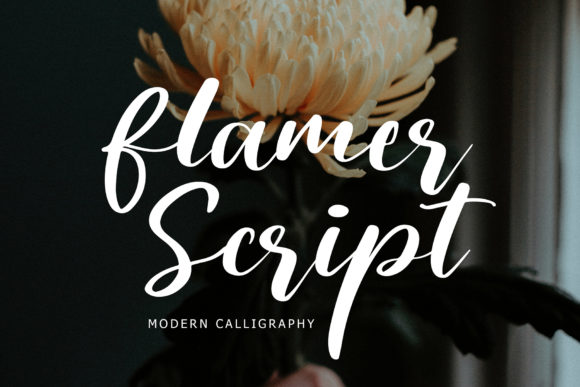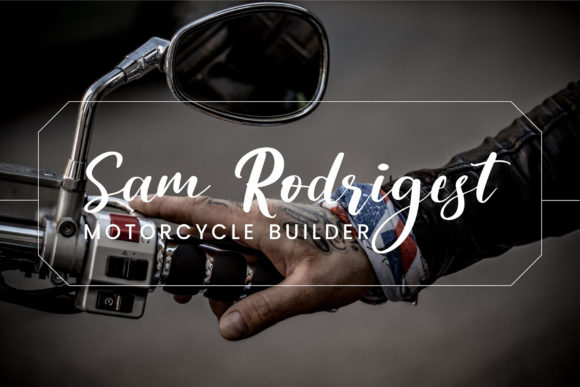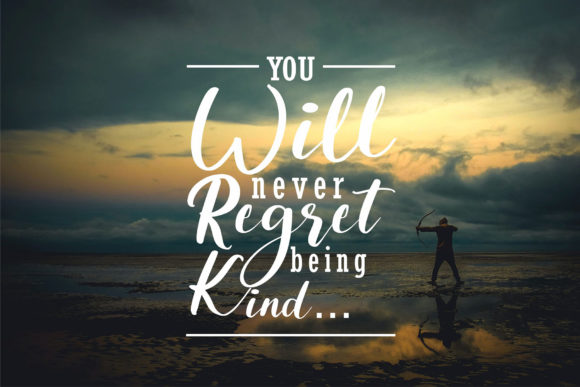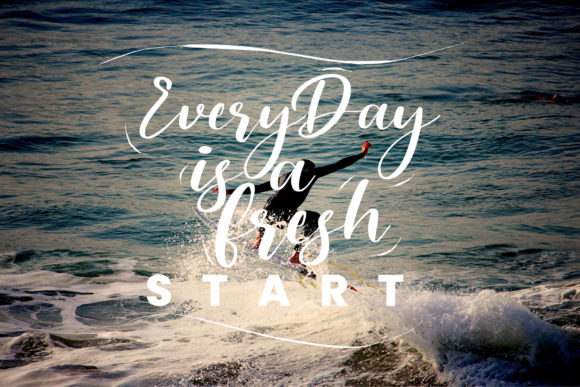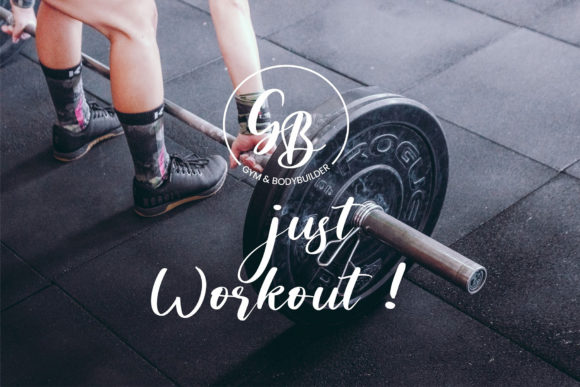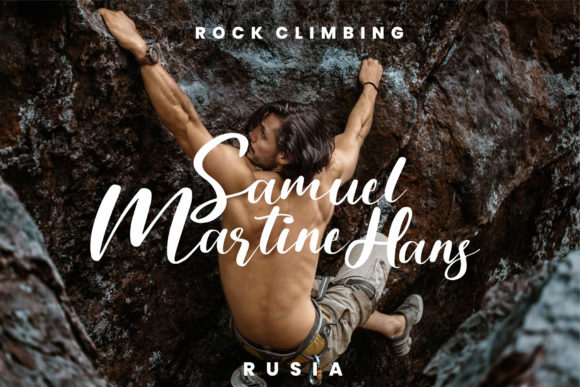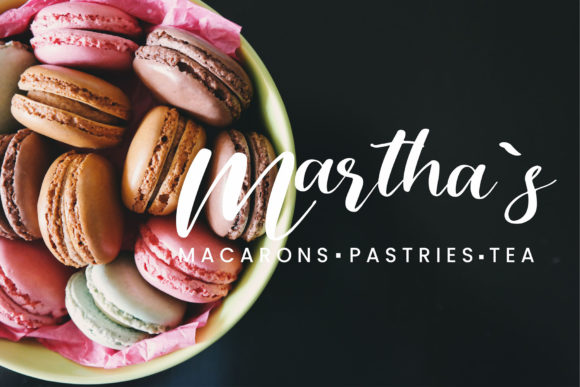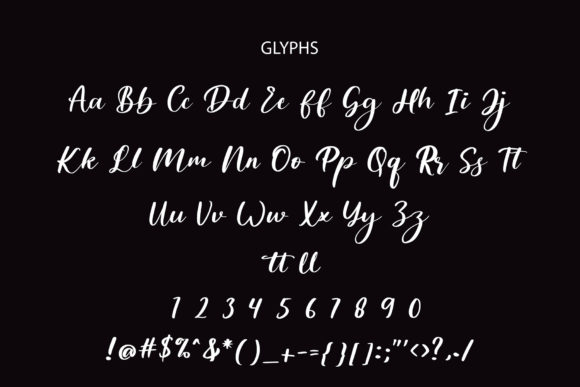
Flamer Script Font
About Flamer Script Font
Flamer Script font is the epitome of modern calligraphy with the combination of strong characters and soft scripted swashes.